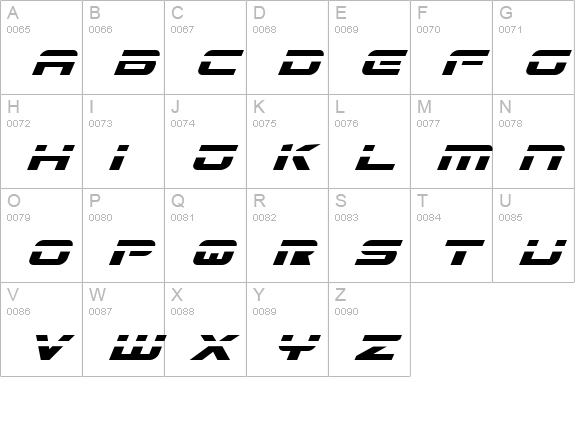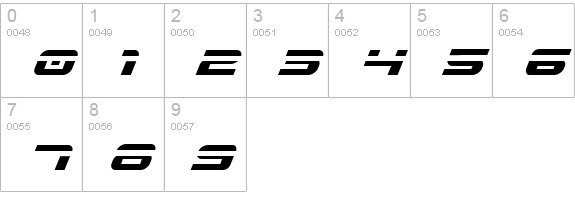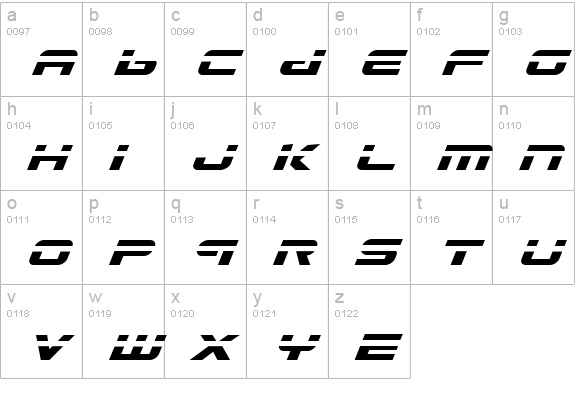
Gunship Laser Italic is a distinctive, italic variant in the Gunship typeface family \xE2\x80\x94 well suited to design and typography projects.
Gunship Laser Italic is a sleek and futuristic display font that exudes power and precision. With its sharp angles and bold strokes, this font is perfect for conveying a sense of high-tech sophistication in your designs. The laser-like appearance of the letters adds a dynamic and edgy touch to any project. What makes Gunship Laser Italic even more appealing is that it is completely free to download. Available at FontsMarket.com, this font can be easily accessed and used in a variety of creative projects without any cost. Whether you're designing a poster, logo, or website, Gunship Laser Italic is sure to make a bold statement and captivate your audience. Add a touch of futuristic flair to your designs with this unique and eye-catching font today!